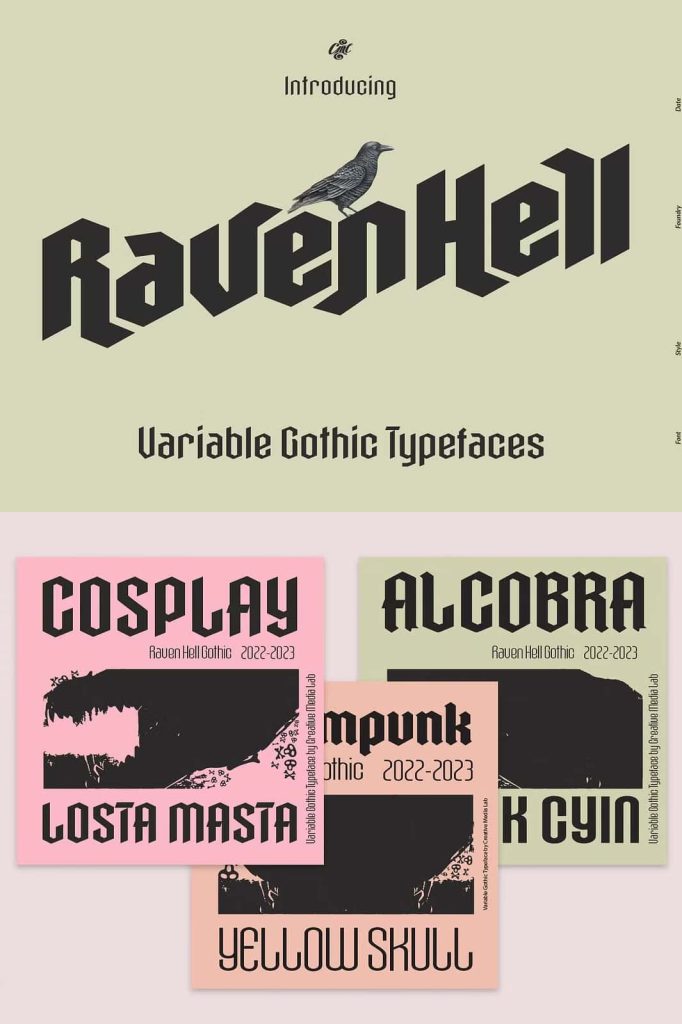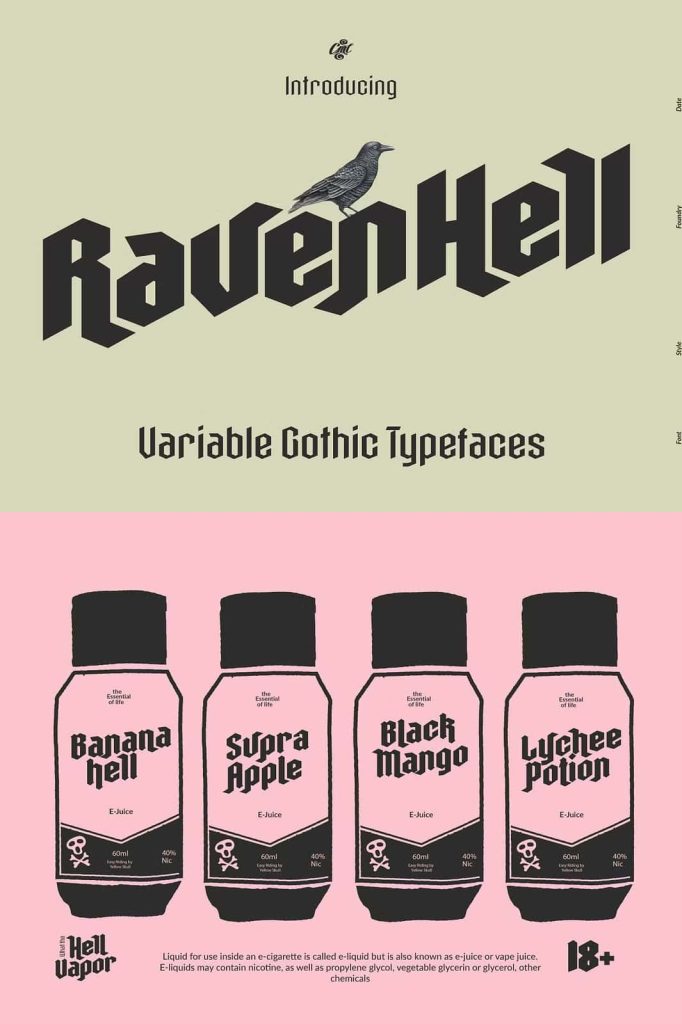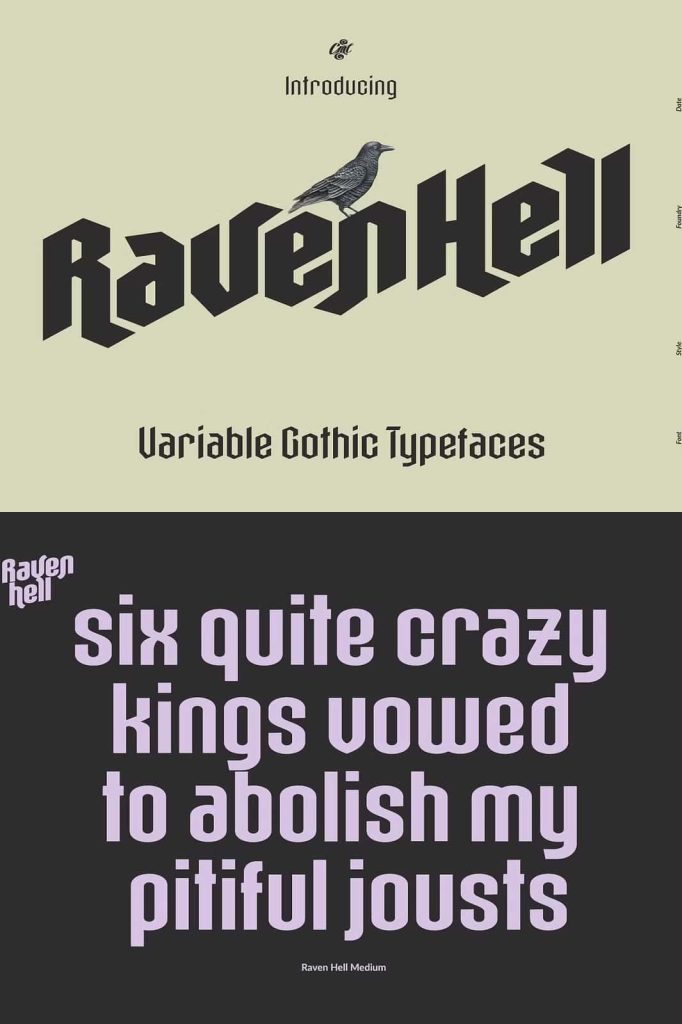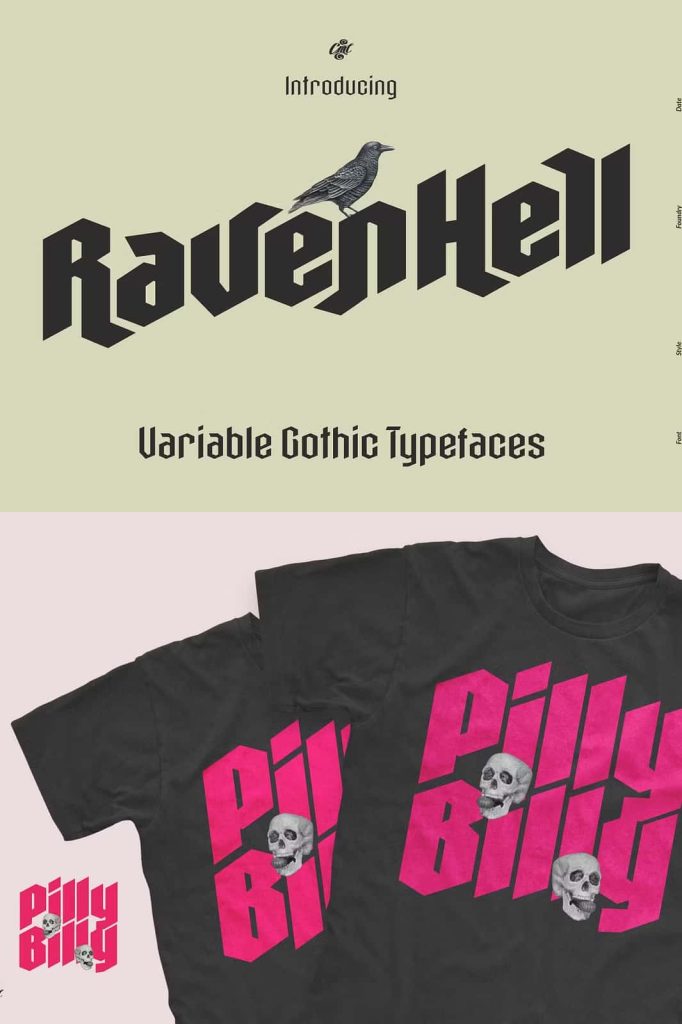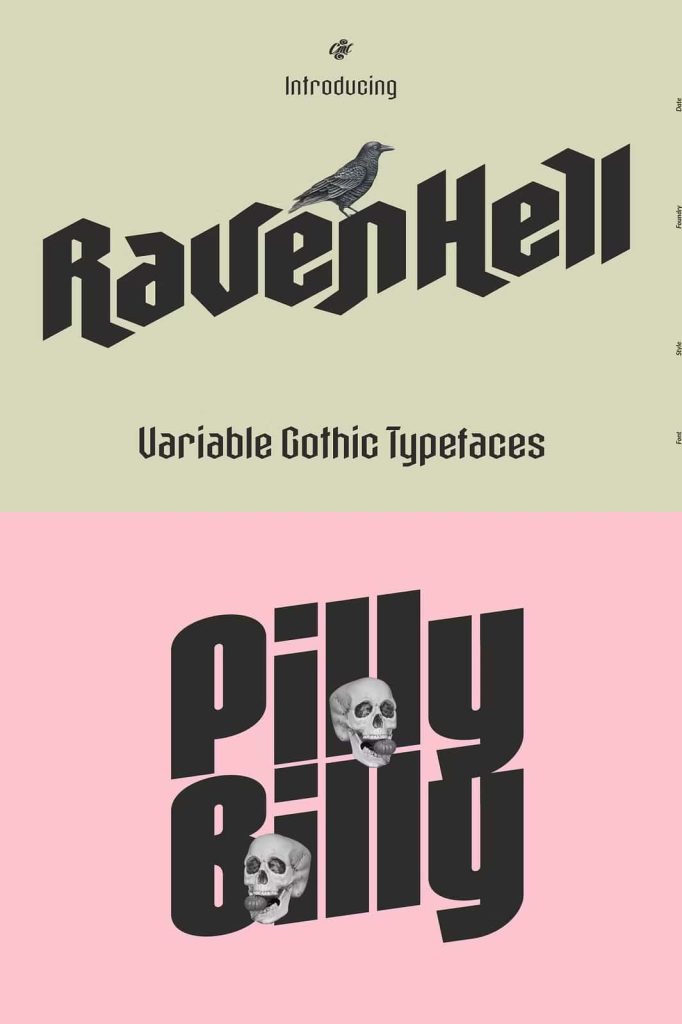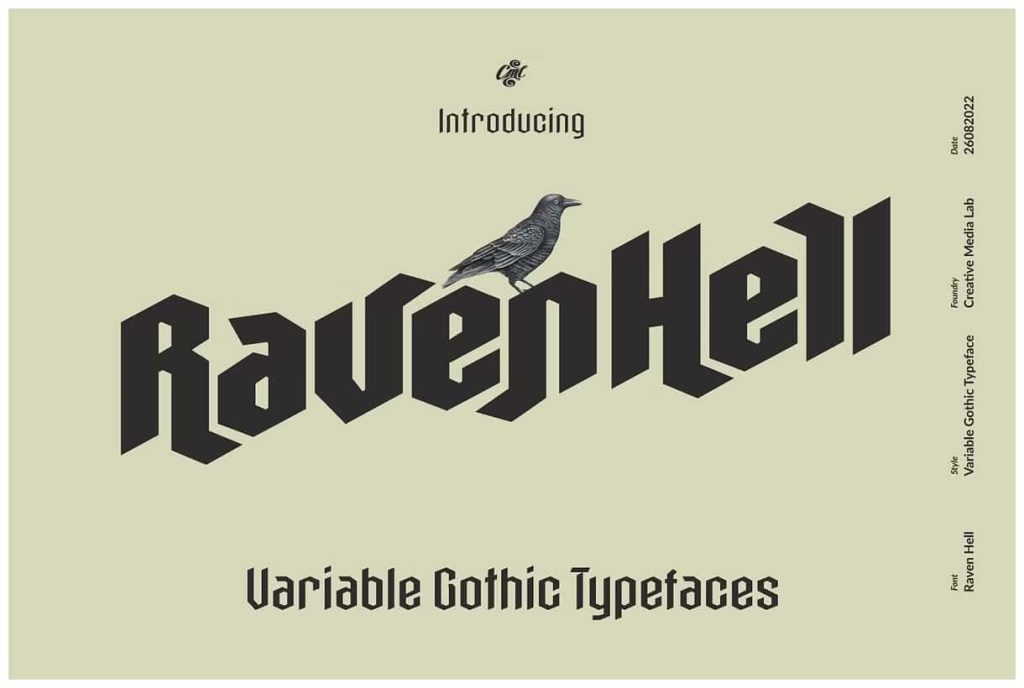
Raven Hell – Variable Gothic FontleastedApril 10, 2025Fonts Raven Hell is a simple and modern gothic font inspired by the culture and architecture of the Middle Ages. Download